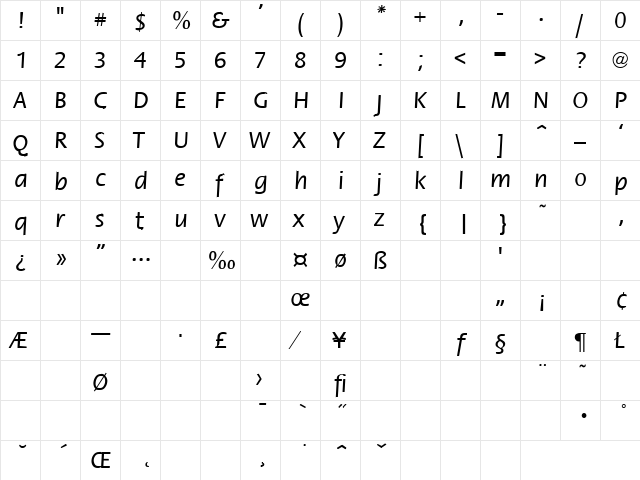
Holy Houses 10 Regular Font Preview
Holy Houses 10 Regular
Holy Houses 10 Regular Font Details
Design Context for Holy Houses 10 Typeface
Holy Houses 10 offers clean, dependable letterforms without strong stylistic allegiance, making it a practical choice for designers who need flexibility.